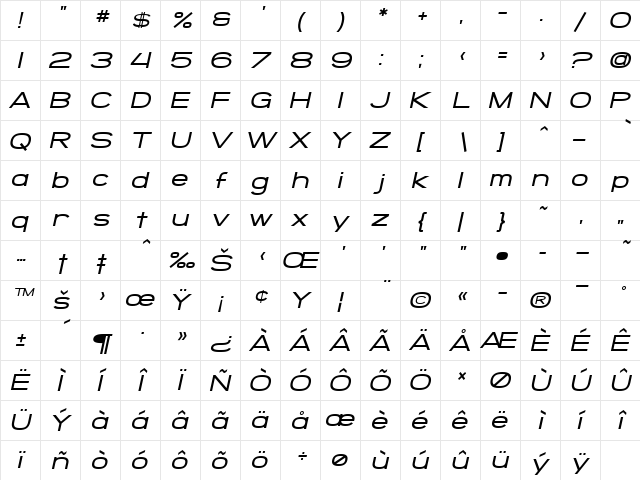
SF Grandezza Medium Oblique
Design Context for SF Grandezza Typeface
SF Grandezza offers clean, dependable letterforms without strong stylistic allegiance, making it a practical choice for designers who need flexibility. Its italic angle brings a sense of urgency and motion to the letterforms.
Pro Tip: Use SF Grandezza for emphasis, pull quotes, and subheadings where its slanted energy can add rhythm to the layout.